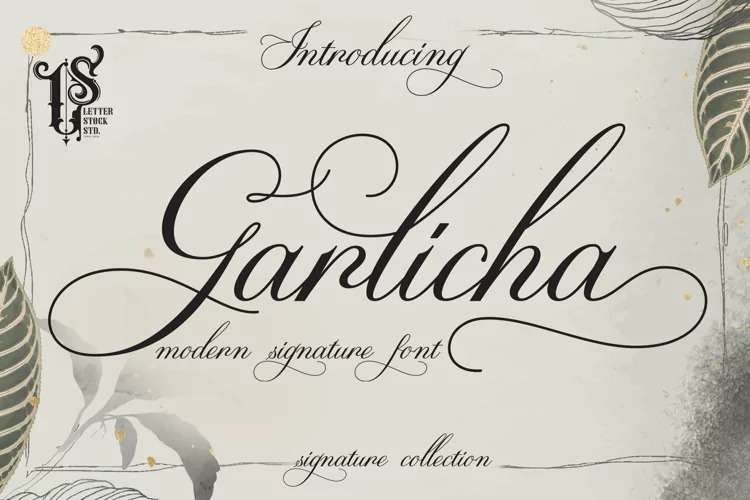
Garlicha Font
Garlicha Calligraphy Font
This is another lovely modern calligraphy typefaces, which is combining the style of classic calligraphy with an modern style. This beautiful font is mad by original hand writting, perfect for you to use it on your design and make it authentic look.
If you looking for elegance script font style, Garlicha is the right choice for that, it will make your authentic design good looking, Garlicha is create by original hand writting and has a elegant calligraphy fonts with script style.